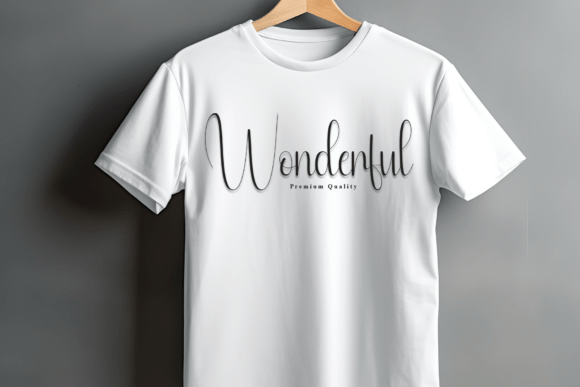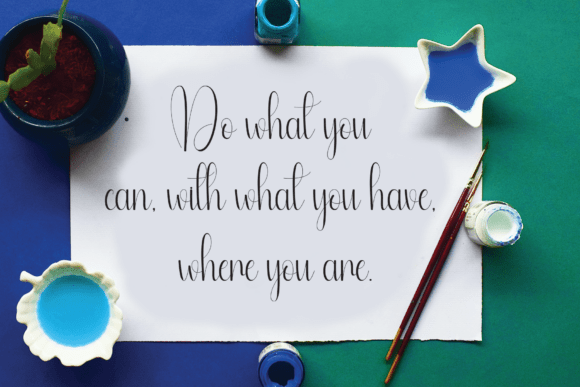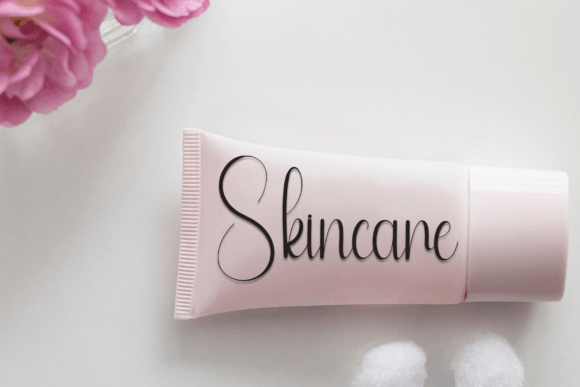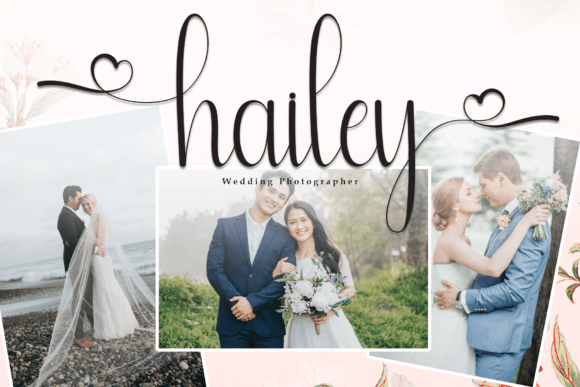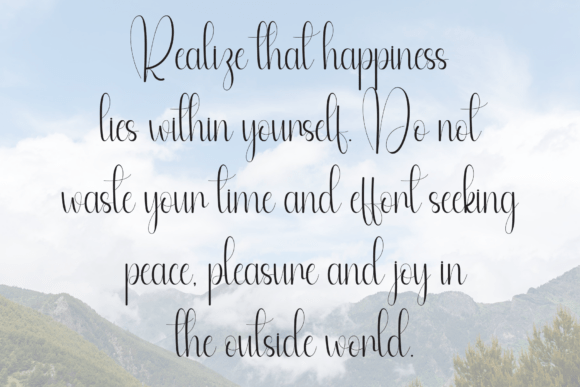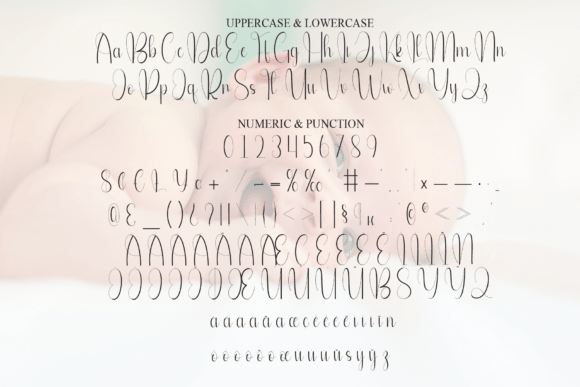
Baby Font: Elevate Your Designs with a Touch of Elegance and Playfulness
In the world of typography, fonts play a crucial role in conveying the tone and personality of a design. For designers and crafters looking to add a personal touch to their projects, Baby Font is an excellent choice. This stylish handwritten script font seamlessly blends modern elegance with a playful touch, making it perfect for a wide range of applications.
What is Baby Font?
Baby Font is a beautiful, handwritten script typeface that exudes warmth, sophistication, and creativity. Its fluid strokes and charming curves bring a personal feel to any design, making it an ideal choice for designers and crafters who want to add a touch of elegance and playfulness to their projects.
Key Features of Baby Font
- Fluid Strokes: Baby Font features fluid strokes that give it a natural, handwritten feel. This makes it perfect for designs that require a personal touch.
- Charming Curves: The font’s charming curves add a touch of elegance and sophistication to any design.
- Modern Elegance: Baby Font blends modern elegance with a playful touch, making it suitable for a wide range of design applications.
- Versatility: This typeface is ideal for logos, packaging, invitations, and other design projects that require a unique and personal touch.
Use Cases for Baby Font
Baby Font is a versatile typeface that can be used in various design applications. Here are some of the most popular use cases:
- Logos: Baby Font is perfect for creating logos that require a personal touch. Its fluid strokes and charming curves make it an excellent choice for branding and identity designs.
- Packaging: The font’s modern elegance and playful touch make it suitable for packaging designs that require a unique and eye-catching typography.
- Invitations: Baby Font is an excellent choice for creating invitations that require a touch of elegance and sophistication. Its fluid strokes and charming curves make it perfect for wedding invitations, birthday invitations, and other special occasion invites.
Benefits of Using Baby Font
Using Baby Font in your designs offers several benefits, including:
- Unique Typography: Baby Font provides a unique and personal touch to your designs, setting them apart from others.
- Elegance and Sophistication: The font’s modern elegance and playful touch add a touch of sophistication to any design.
- Versatility: Baby Font is a versatile typeface that can be used in various design applications, making it an excellent addition to your font library.
Tips for Using Baby Font Effectively
To get the most out of Baby Font, here are some tips to keep in mind:
- Pair it with Other Fonts: Baby Font can be paired with other fonts to create a unique and visually appealing typography.
- Experiment with Colors: The font’s modern elegance and playful touch make it suitable for a wide range of colors and design schemes.
- Use it for Headings and Titles: Baby Font is perfect for headings and titles that require a touch of elegance and sophistication.
Baby Font is a beautiful, handwritten script typeface that blends modern elegance with a playful touch. Its fluid strokes and charming curves bring a personal feel to any design, making it perfect for logos, packaging, invitations, and other design projects. With its versatility, unique typography, and elegance, Baby Font is an excellent addition to any designer’s font library.